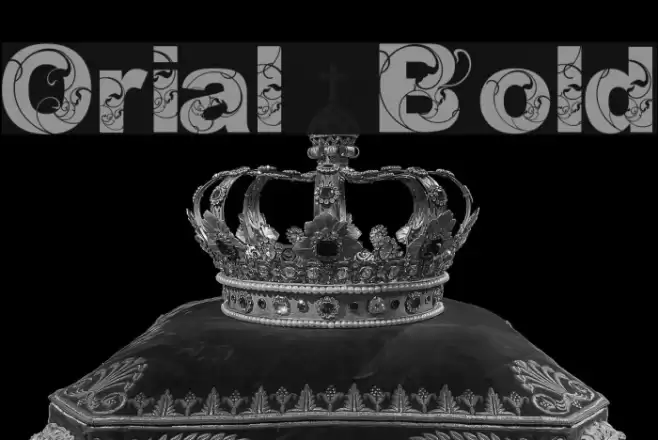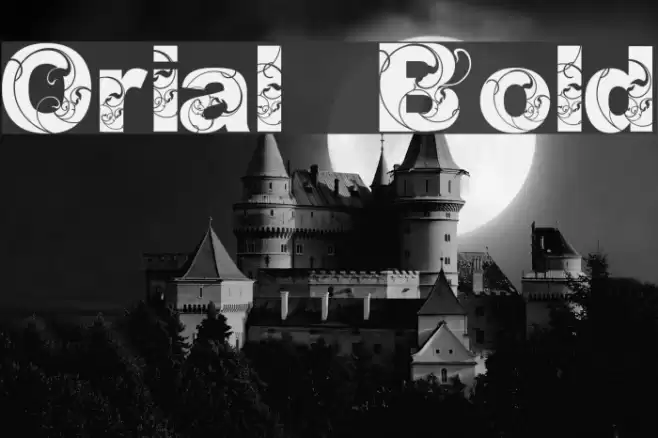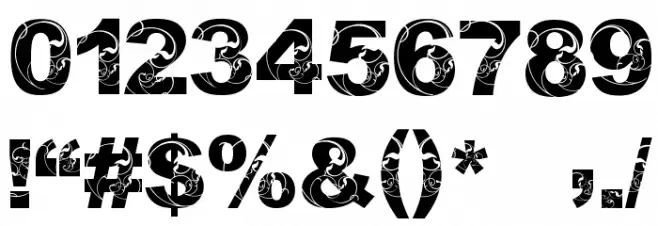
Orial_ Bold Font
Orial_ Bold Description
This font features a bold, decorative style with intricate floral patterns integrated into each character. The uppercase and lowercase letters, as well as numbers and special characters, are all adorned with these ornate details, creating a visually striking appearance. The design is both artistic and bold, making it suitable for projects that require a strong visual impact. The characters are well-defined, with a consistent pattern that adds a unique flair to the overall design. The font's boldness is complemented by the decorative elements, making it ideal for creative and artistic applications.
A bold, decorative font with intricate floral patterns in each character from Uncategorized fonts.
- Proposed Projects: Ideal for wedding invitations, greeting cards, posters, and artistic branding.
- Use Case: Logos, Headlines, Artistic projects